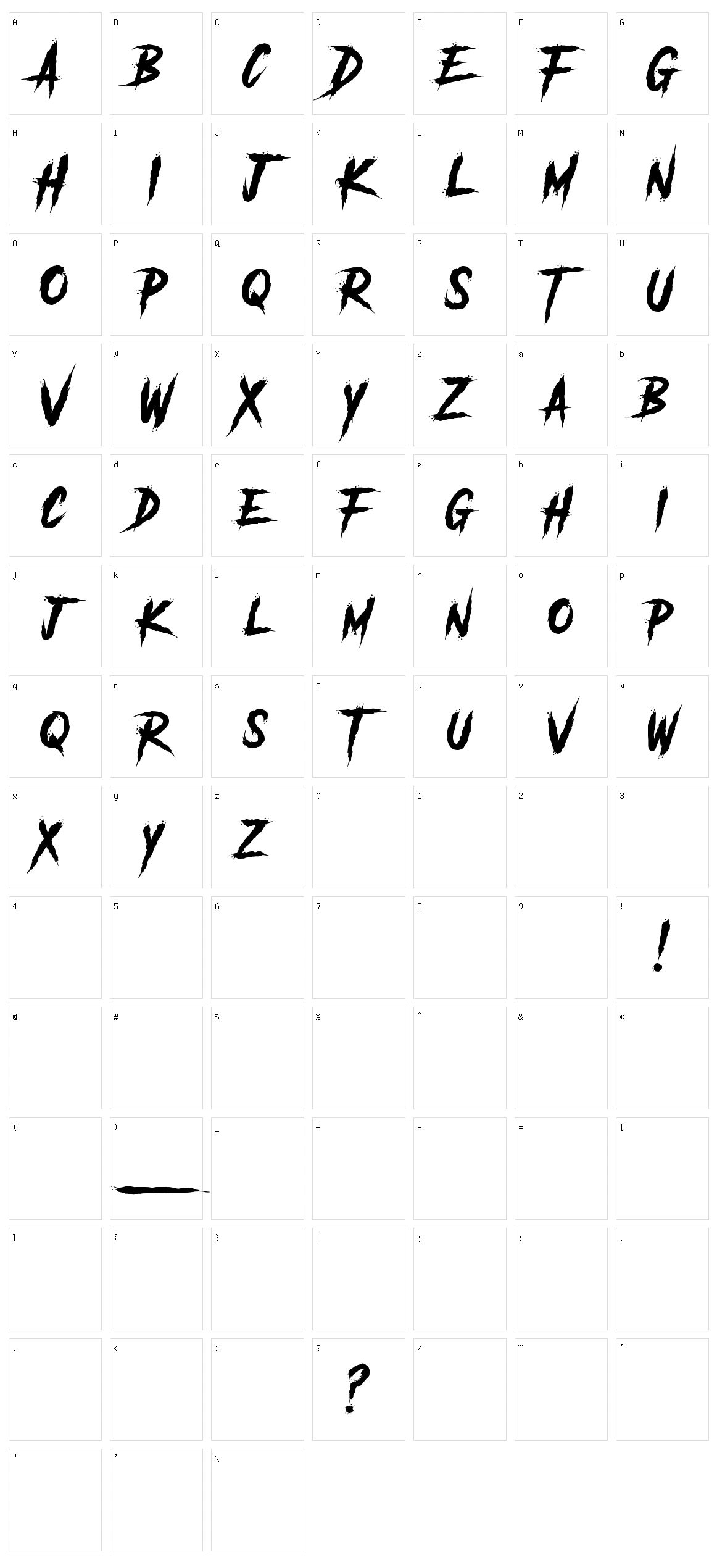
The free font Another Danger is carefully designed by The Branded Quotes, showcasing a thoughtful balance of creativity and usability and falls under the Horror font style. When you download the ZIP file, it contains only 2828.22 KB of font files, making it lightweight and quick to download. Please review the license details below to understand permitted usage and distribution rights. If license information is not available, we recommend using this font for personal projects only or contacting the author directly for commercial usage permissions.